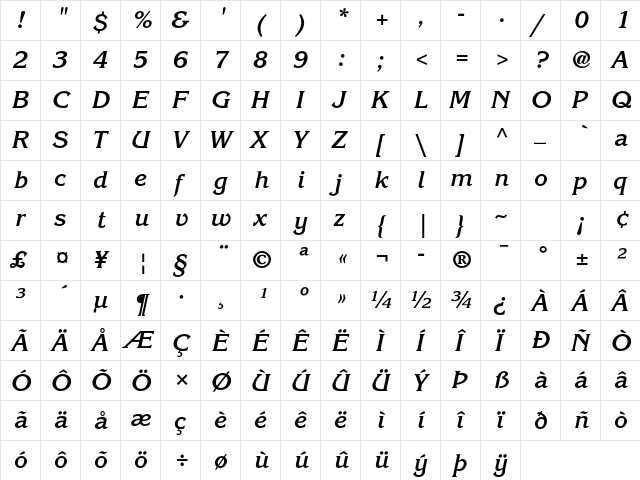
ITC Korinna Std Bold Kursiv Font Preview
| Designer | Ed Benguiat, Vic Caruso |
Design Context for ITC Korinna Std Typeface
ITC Korinna Std is a composed and adaptable typeface that performs quietly and consistently across a wide range of design contexts. The dynamic lean of this cut emphasises speed and emphasis in any layout. The heavy weight commands attention and anchors typographic hierarchies.
Pro Tip: Try ITC Korinna Std for annotation and caption copy alongside an upright companion — the contrast in angle creates a dynamic but ordered typographic system.